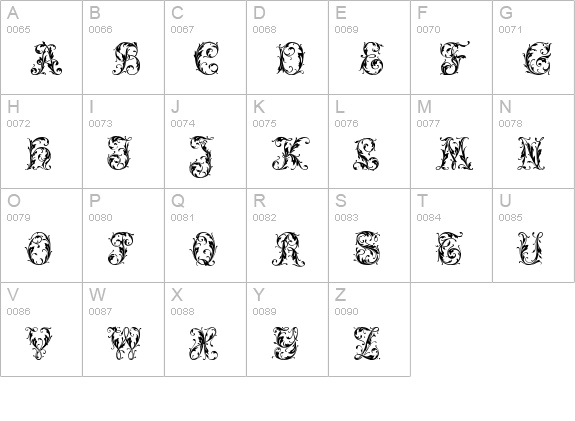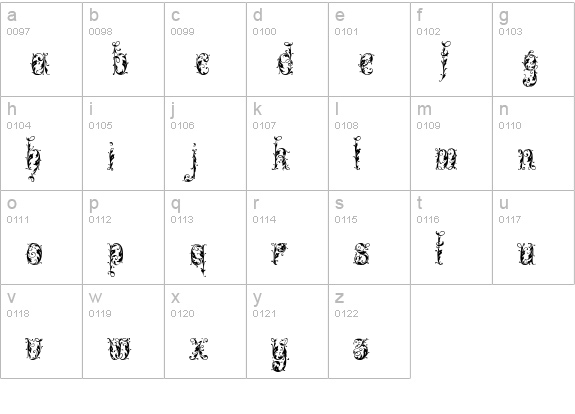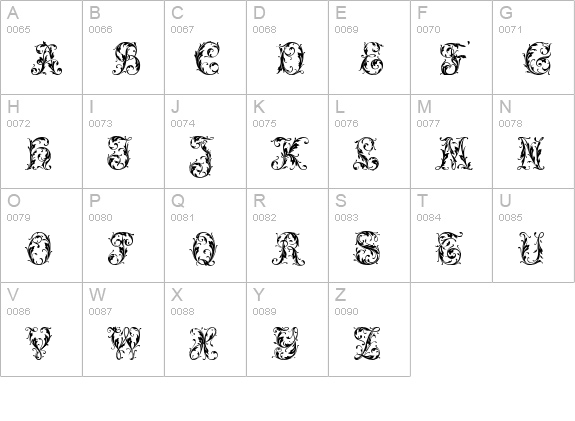
Leafy glade Font Details
Introducing the enchanting Leafy Glade font, a captivating typeface that will transport you to a whimsical realm of nature and serenity. With its delicate and organic letterforms, Leafy Glade captures the essence of a tranquil forest glade, where sunlight filters through the leaves, creating a dappled dance upon the ground. Each letter of Leafy Glade is meticulously crafted, with intricate details that resemble delicate tendrils and graceful foliage. The flowing strokes and elegant curves evoke a sense of natural beauty, making this font a perfect choice for projects that require a touch of enchantment and sophistication. But what sets Leafy Glade font apart is not just its breathtaking design, but also the fact that it is freely available for download at FontsMarket.com. That's right, you can now bring the magic of Leafy Glade into your designs without any cost. Whether you are a professional designer or a creative enthusiast, this font will inspire and elevate your projects, adding a touch of elegance and artistic flair. Leafy Glade font is highly versatile and can be used for a wide range of design purposes. From branding and logo design to invitations, packaging, and even social media graphics, this font will effortlessly transform any project into a work of art. Its legibility and unique charm make it suitable for both print and digital applications, ensuring that your message is conveyed with clarity and style. So why wait? Embrace the beauty of nature and the allure of Leafy Glade font today. Download it freely at FontsMarket.com and let your creativity bloom in the most enchanting way possible.